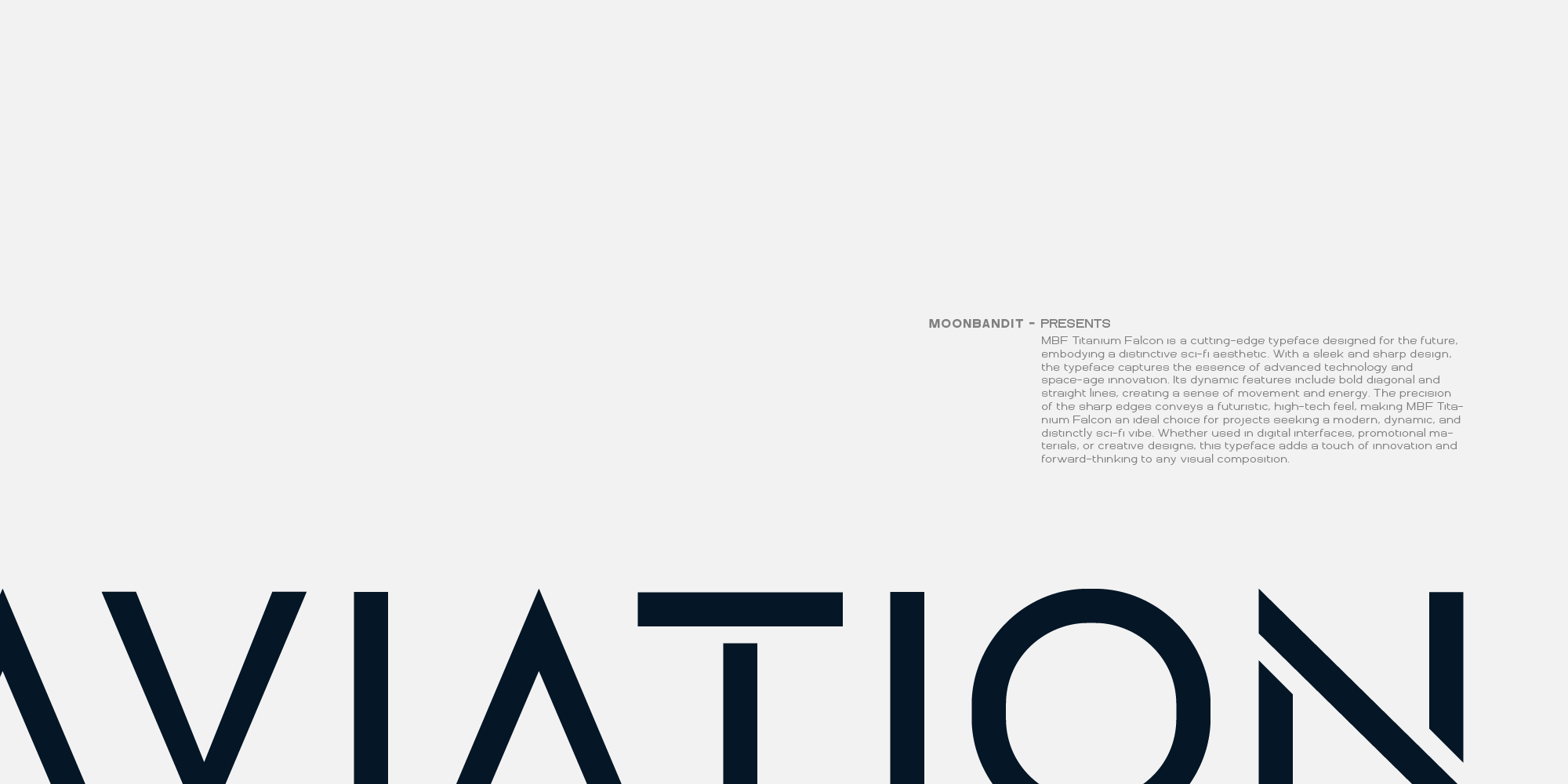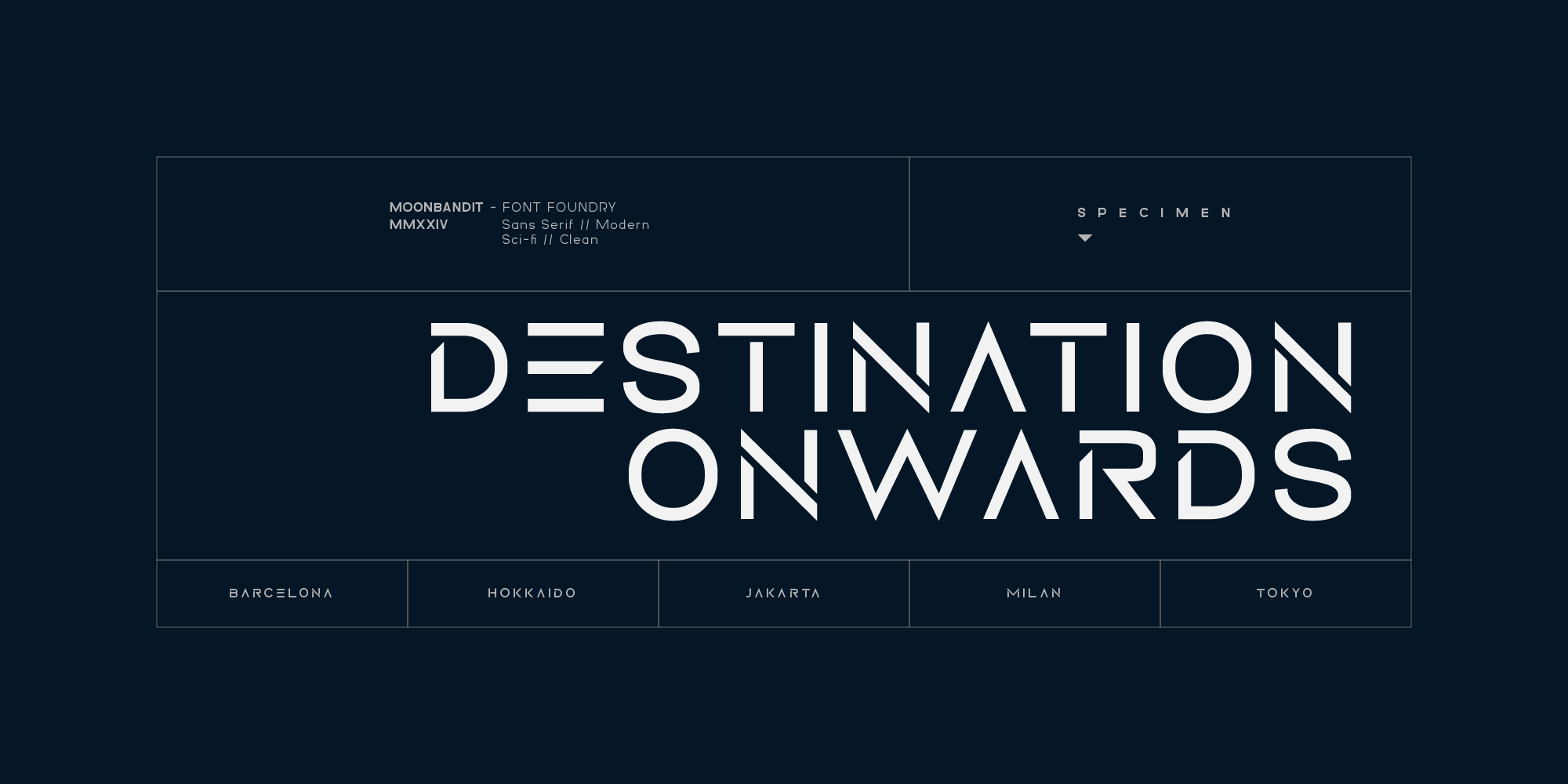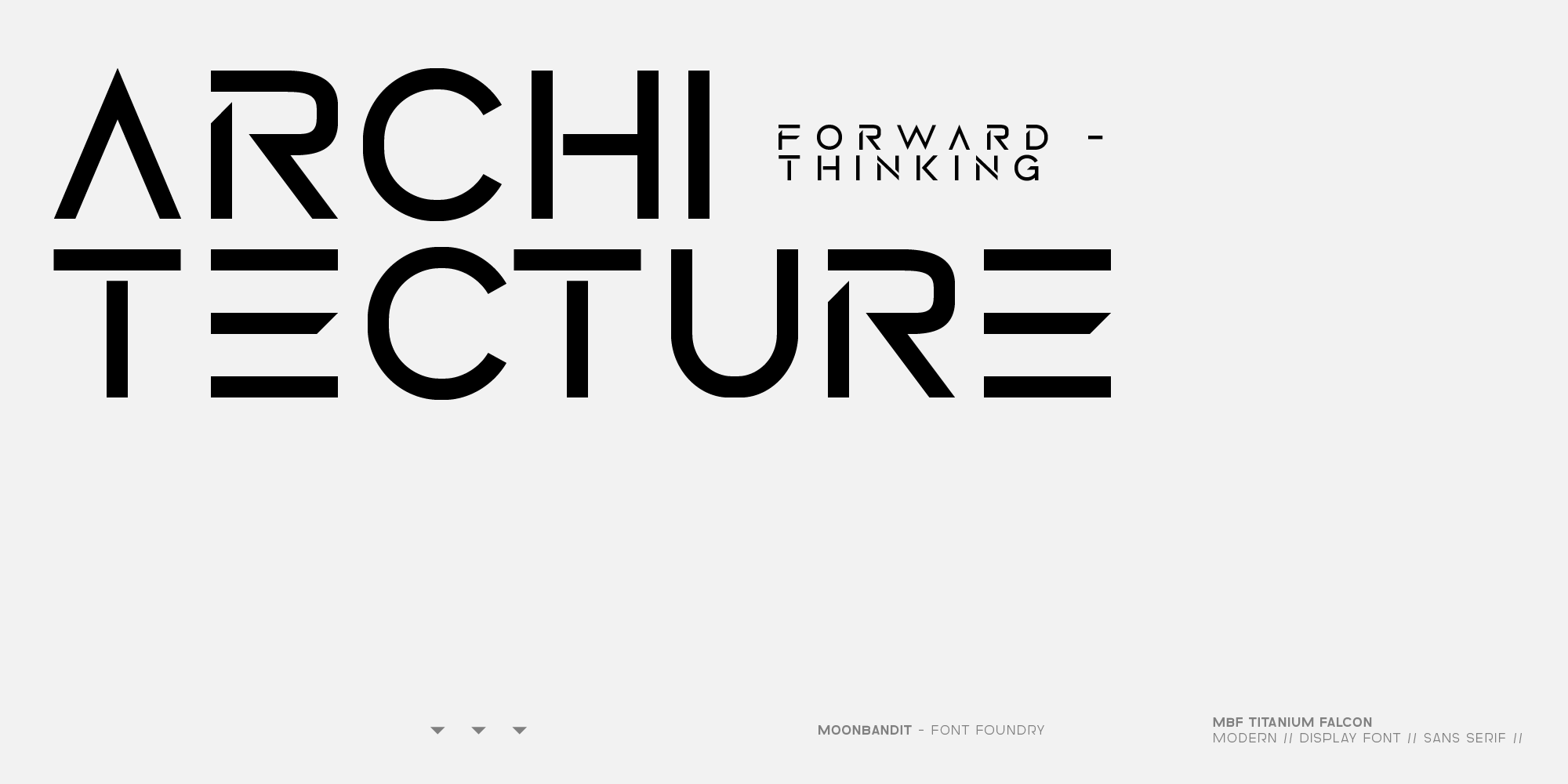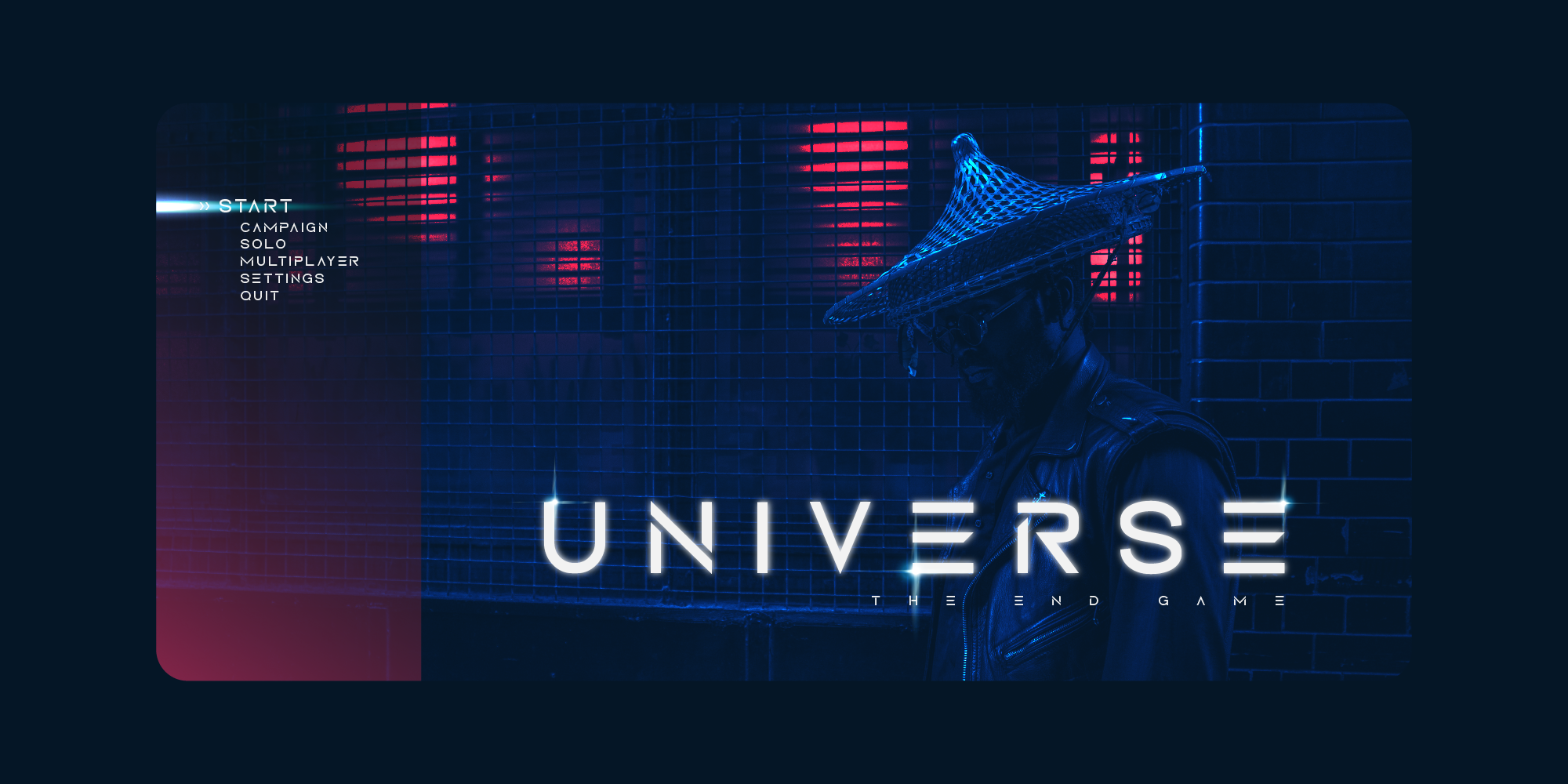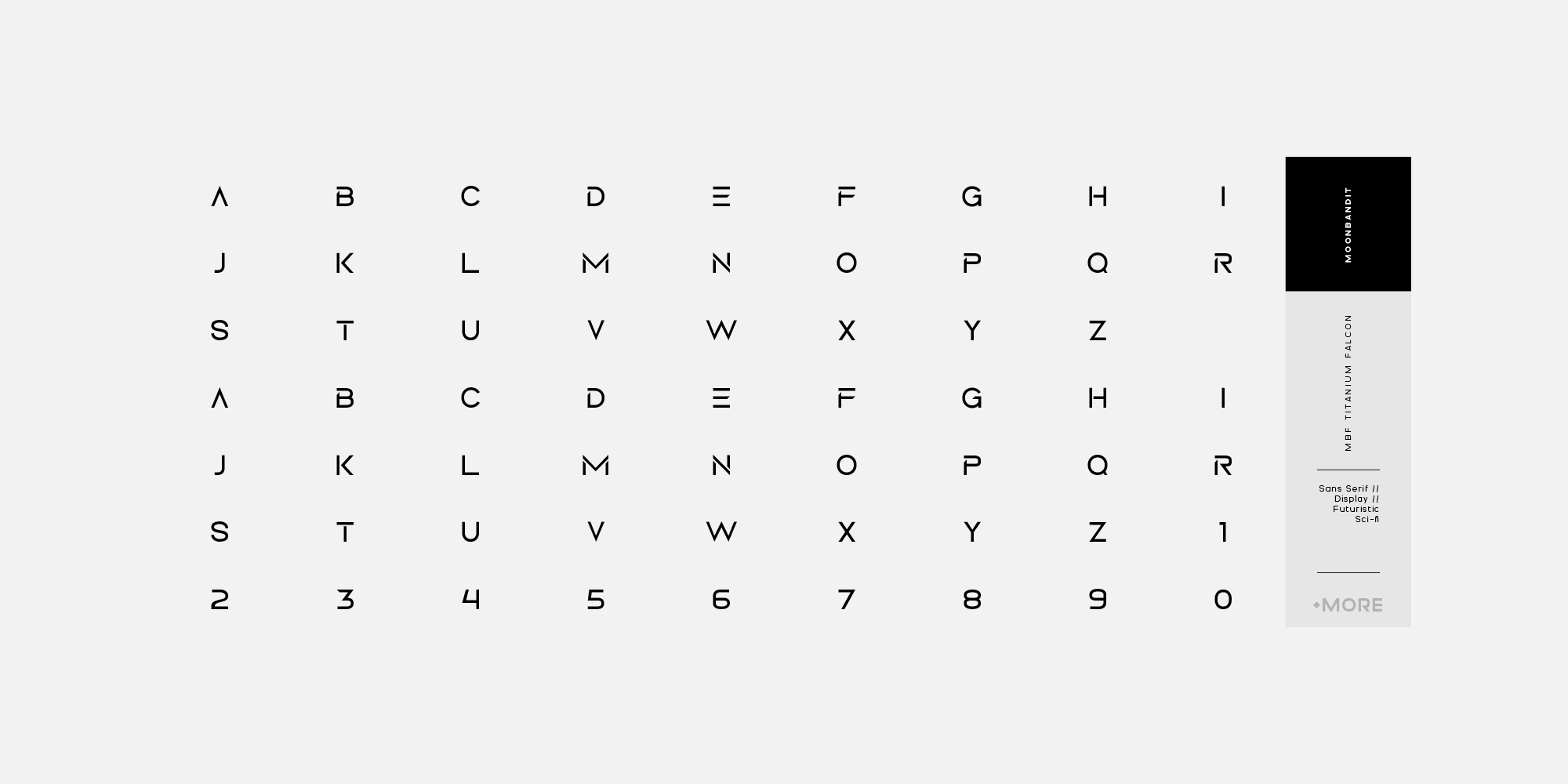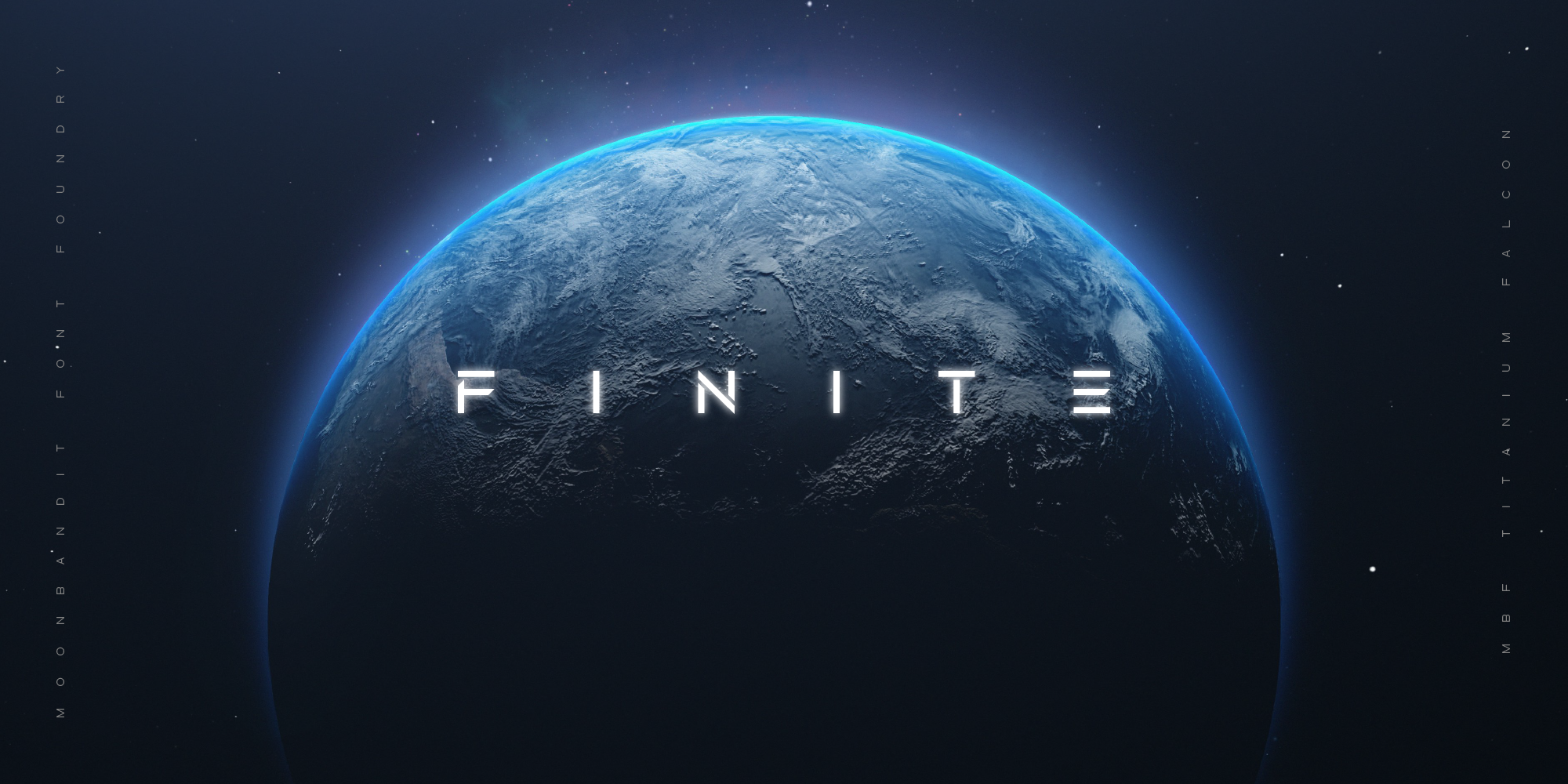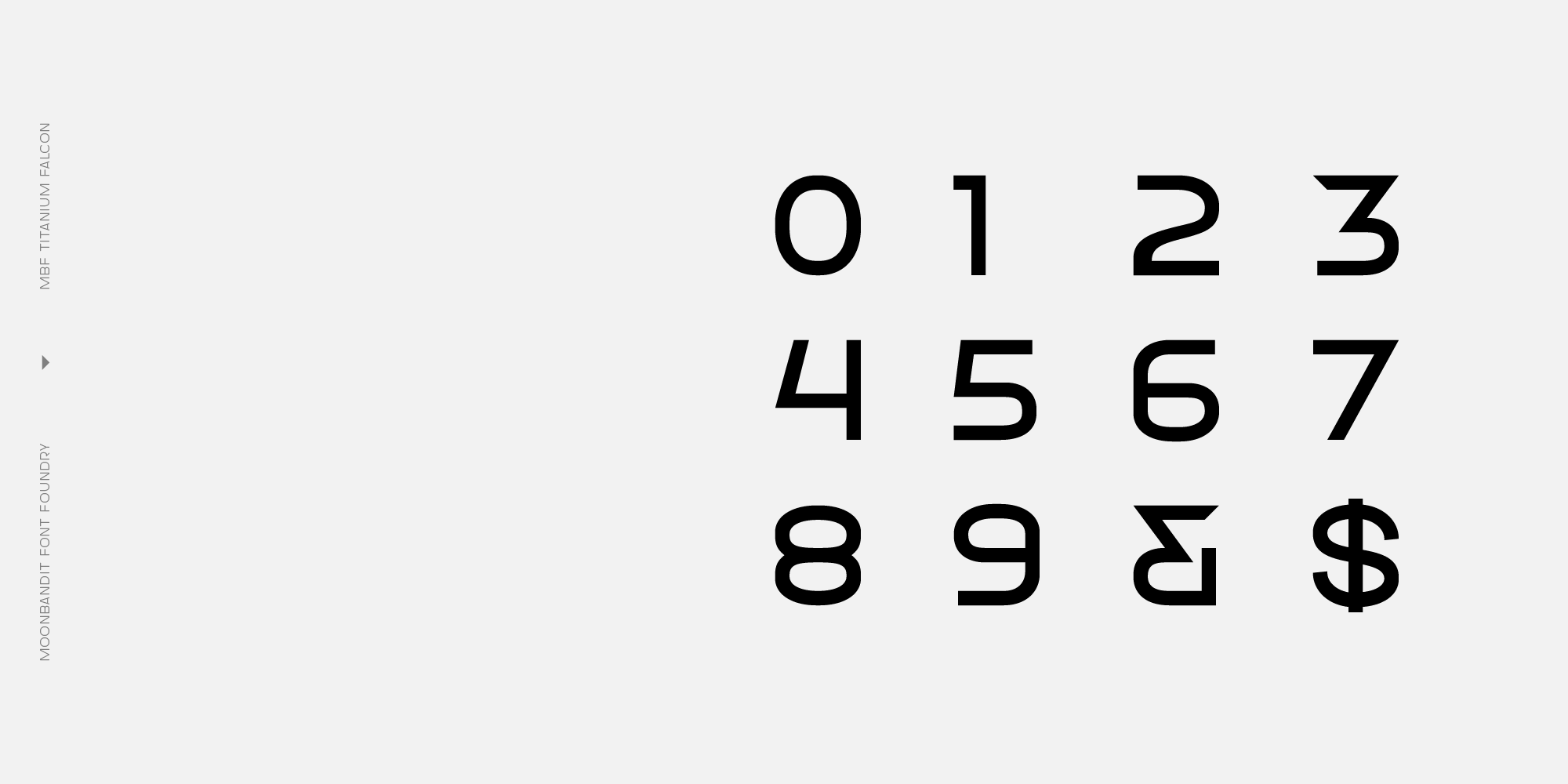
MBF Titanium Falcon
STARS IN THE SKY THAT WE SEE NOW ARE MEMORIES OF THE PAST
MBF Titanium Falcon is a cutting-edge typeface designed for the future, embodying a distinctive sci-fi aesthetic. With a sleek and sharp design, the typeface captures the essence of advanced technology and space-age innovation. Its dynamic features include bold diagonal and straight lines, creating a sense of movement and energy. The precision of the sharp edges conveys a futuristic, high-tech feel, making MBF Titanium Falcon an ideal choice for projects seeking a modern, dynamic, and distinctly sci-fi vibe. Whether used in digital interfaces, promotional materials, or creative designs, this typeface adds a touch of innovation and forward-thinking to any visual composition.